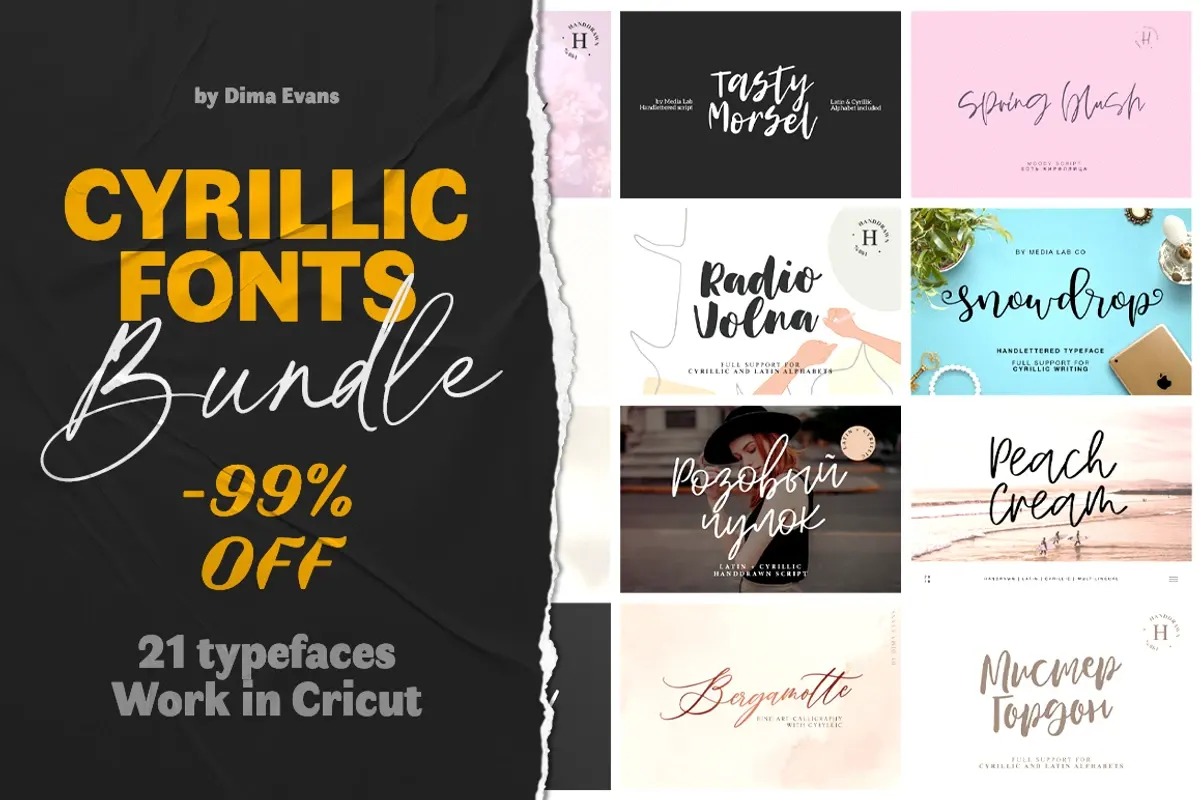
The Cyrillic Fonts Bundle is a premium collection of stylish and versatile typefaces that support the Cyrillic alphabet. Perfect for designers working with Slavic languages or international branding, this bundle includes a range of font styles—from elegant scripts to bold sans-serifs—all crafted with precision and character.
Ideal for logos, packaging, posters, and digital content, this bundle provides high-quality, professional fonts that make your work stand out across markets. Whether you're designing for fashion, tech, or editorial, these Cyrillic fonts offer the flexibility and visual appeal your project needs.